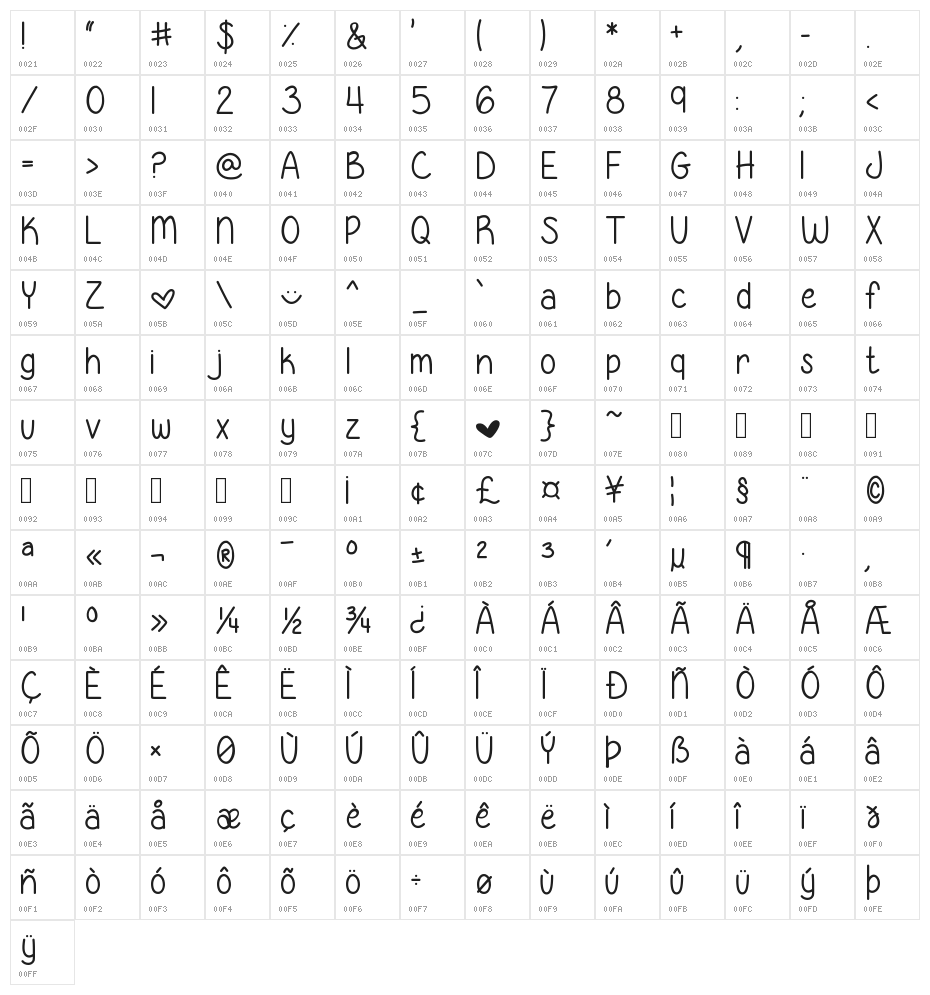
Georgia Belle Font
Georgia Belle Description
This font features a playful and rounded style, characterized by its smooth curves and consistent line thickness. The letters are evenly spaced, providing a clean and approachable appearance. Its casual and friendly demeanor makes it suitable for informal and creative projects. The numerals and special characters maintain the same rounded aesthetic, ensuring uniformity across all text elements. This font is versatile, offering a modern yet whimsical touch to any design.
| Proposed Projects | Ideal for children's books, greeting cards, playful branding, and casual invitations. |